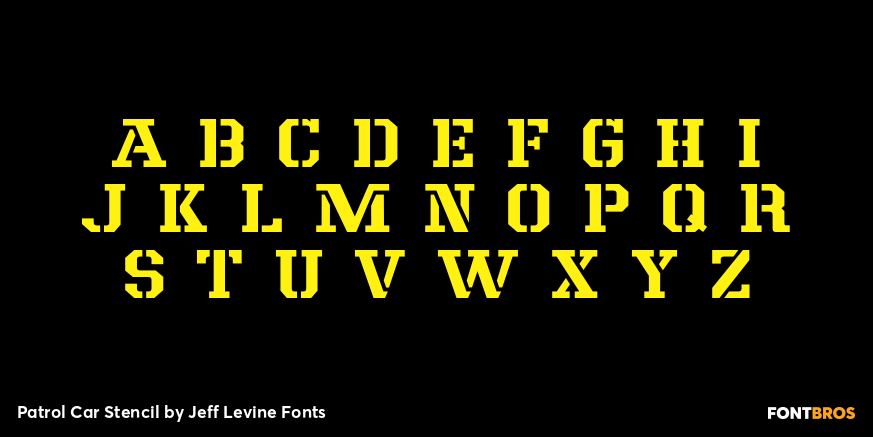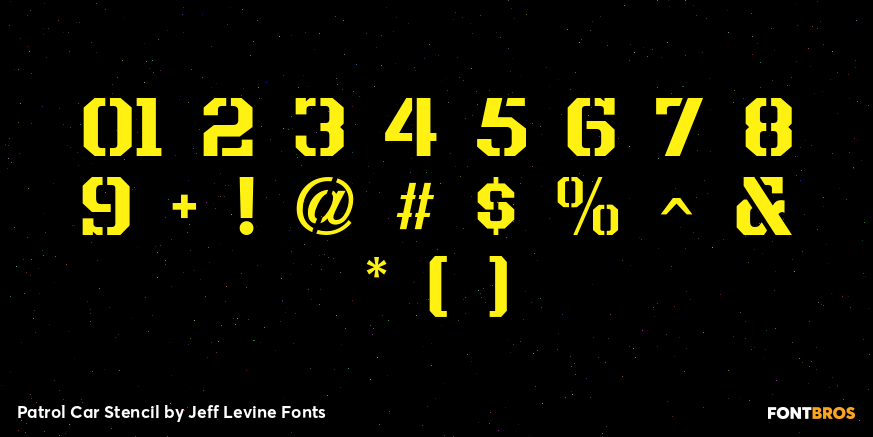
Patrol Car Stencil
An edition of the 'Car 54 Where Are You?” series published by Dell (and based on the hit TV show created by Nat Hiken) displayed 'Car 54' in a bold hand lettered stencil design on the cover.
These few characters became the inspiration for Patrol Car Stencil JNL, which is available in both regular and oblique versions.
Patrol Car Stencil JNL Oblique
Patrol Car Stencil JNL Regular